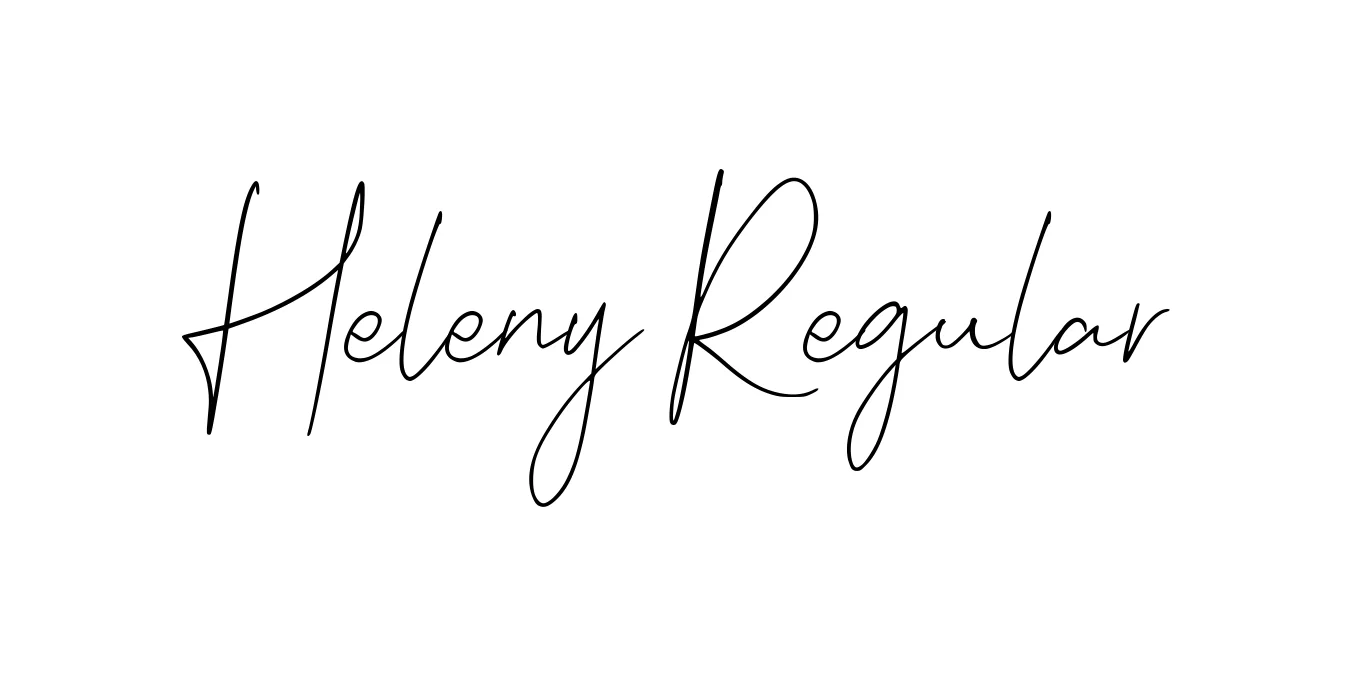
Heleny Regular
Designed by Sronstudio
Heleny Regular is a masterfully crafted handwritten script font that exudes a sense of elegance and personal charm. Its design features fluid, organic strokes that closely mimic natural calligraphy, offering a sophisticated aesthetic that feels both modern and timeless. Developed to meet the needs of designers seeking an artisanal touch, this typeface bridges the gap between casual handwriting and formal script.
Since its release, Heleny has become a staple in the creative design community for projects that require a feminine or high-end feel. Its versatile nature allows it to perform exceptionally well across various mediums, from digital social media graphics to high-quality print stationery. The font is celebrated for its legibility despite its decorative flourishes, making it a practical yet beautiful choice for professional typography.
Heleny Regular Best Uses
Perfect for adding a romantic and personalized touch to wedding stationery suites.
Ideal for boutique brands, fashion labels, and photography watermarks.
Excellent for creating eye-catching quote posts and Instagram stories.
Adds a sophisticated handwritten flair to magazine headers and book covers.